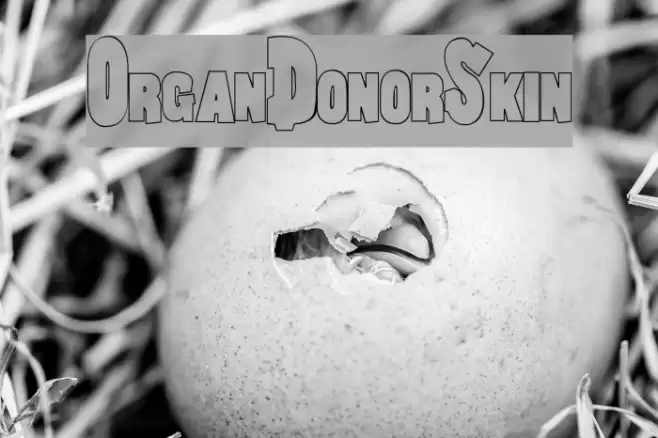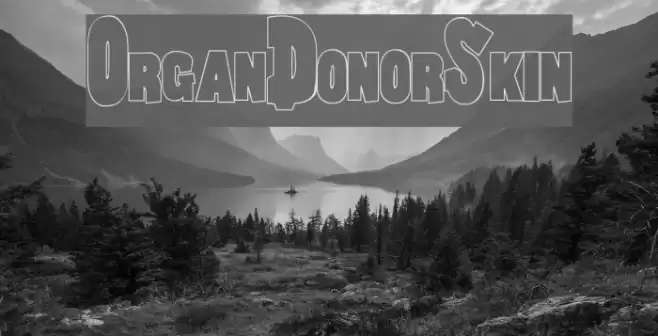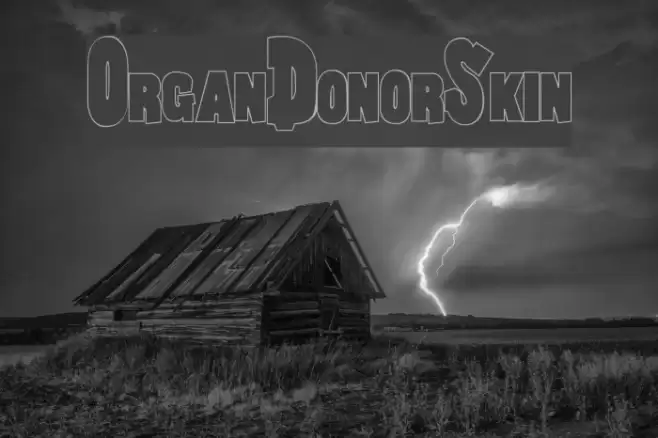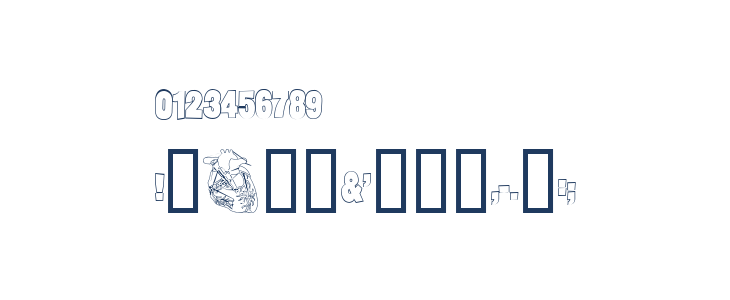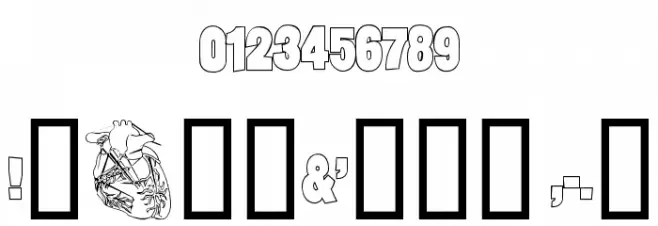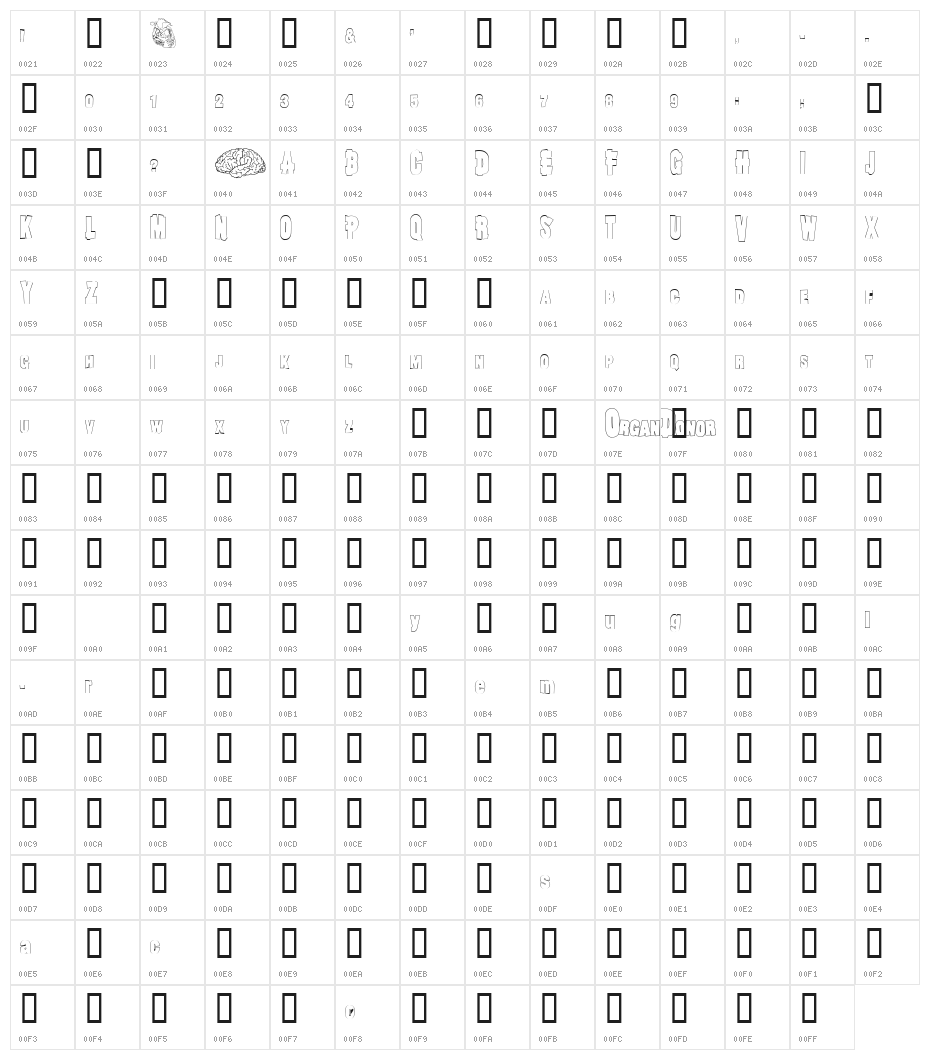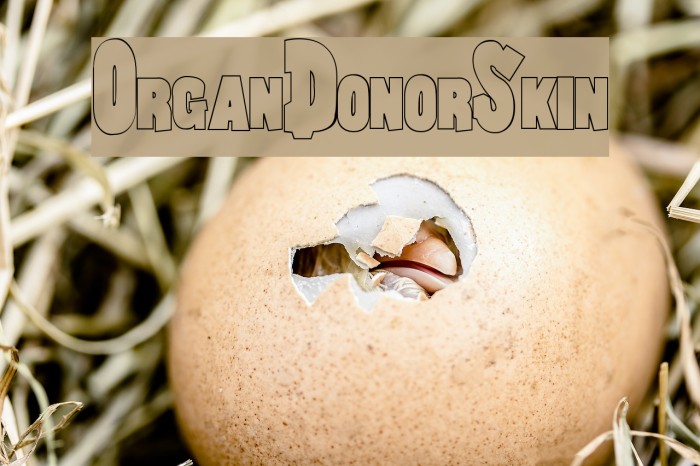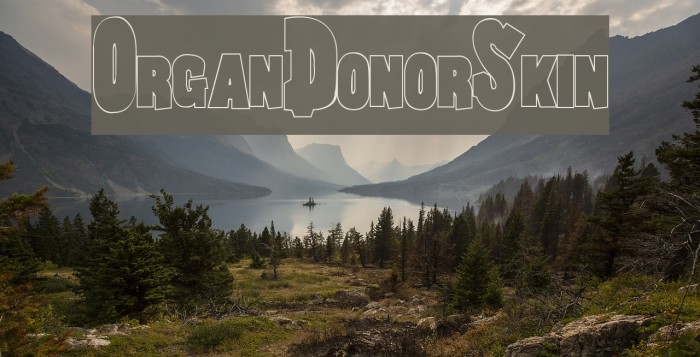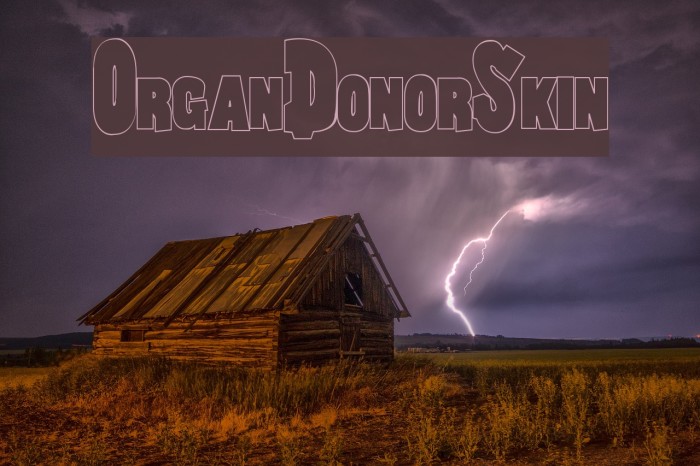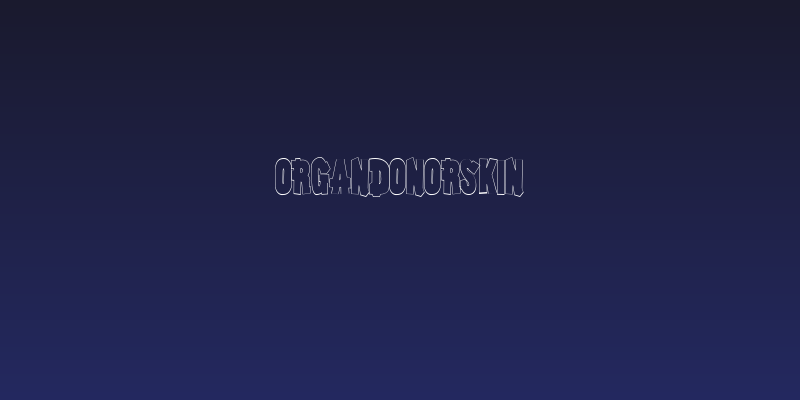
OrganDonorSkin Font
OrganDonorSkin Description
This font features a bold and playful design with a strong presence. The uppercase letters are characterized by thick, blocky shapes with a slight 3D effect, giving them a dynamic and eye-catching appearance. The lowercase letters maintain the same boldness, ensuring consistency throughout the typeface. The numbers are equally robust, matching the style of the letters. Special characters are included, adding versatility to the font. The overall style is reminiscent of comic or cartoon lettering, making it ideal for projects that require a fun and energetic vibe.
A bold, playful font with a dynamic, comic-inspired style from Uncategorized fonts.
- Proposed Projects: Ideal for comic books, children's books, posters, and playful branding.
- Overall Style: Playful, Comic
- Use Case: Headlines, Posters, Branding